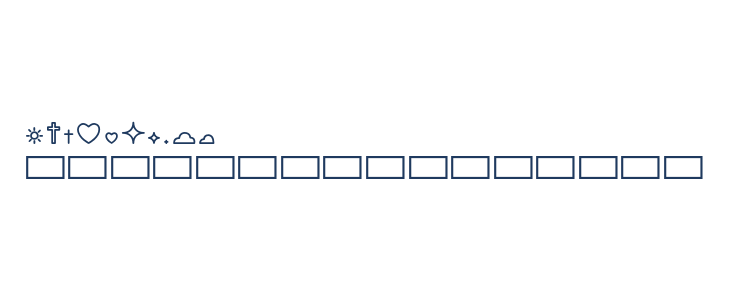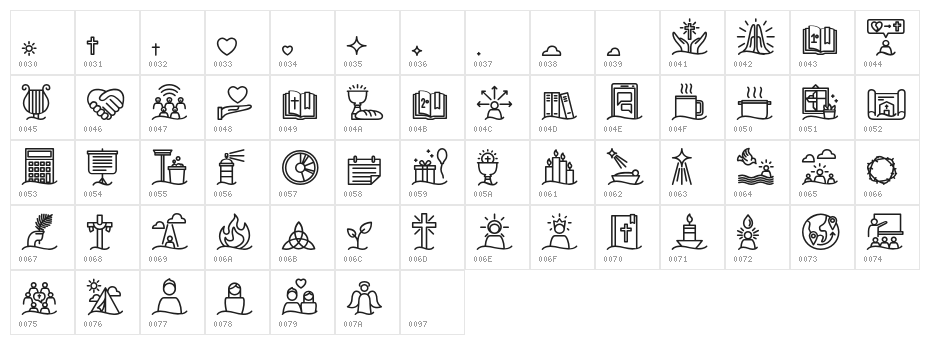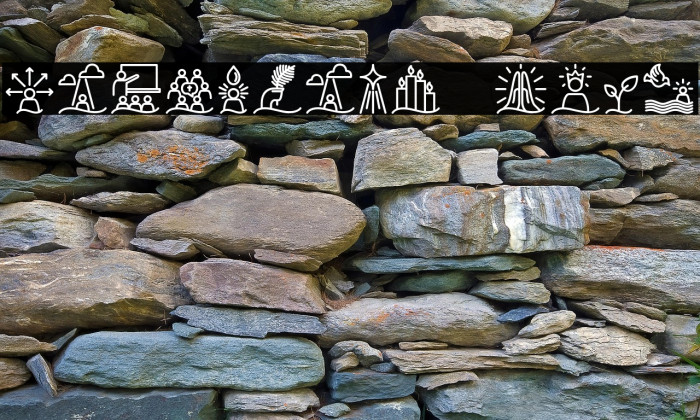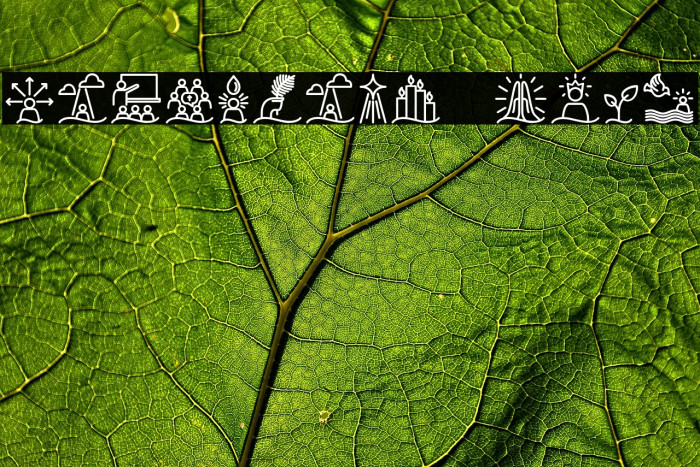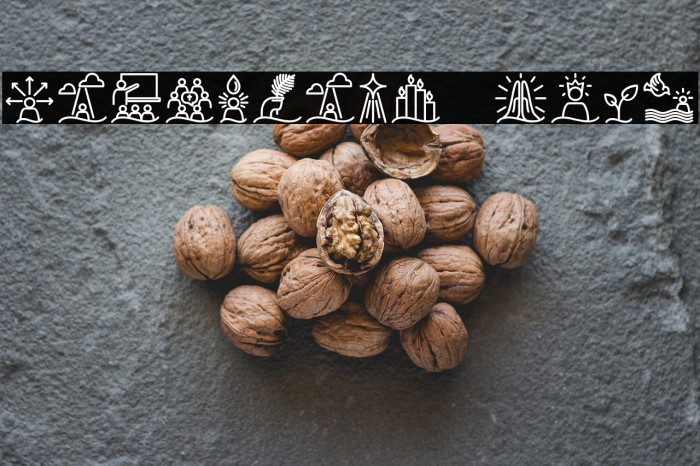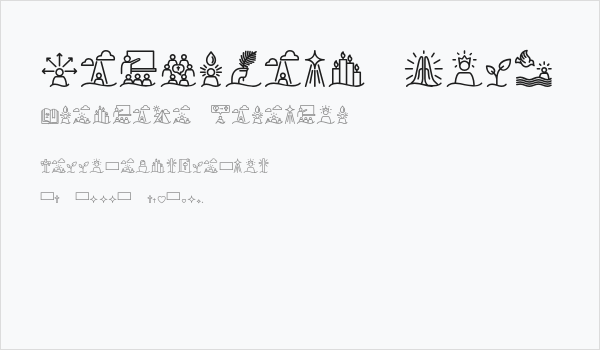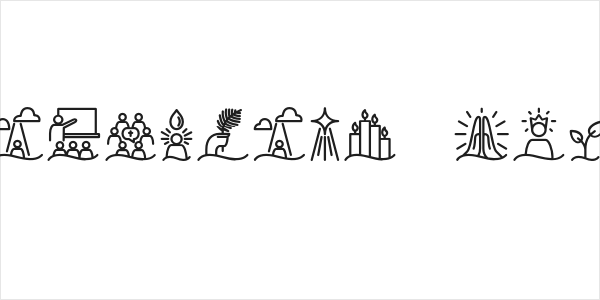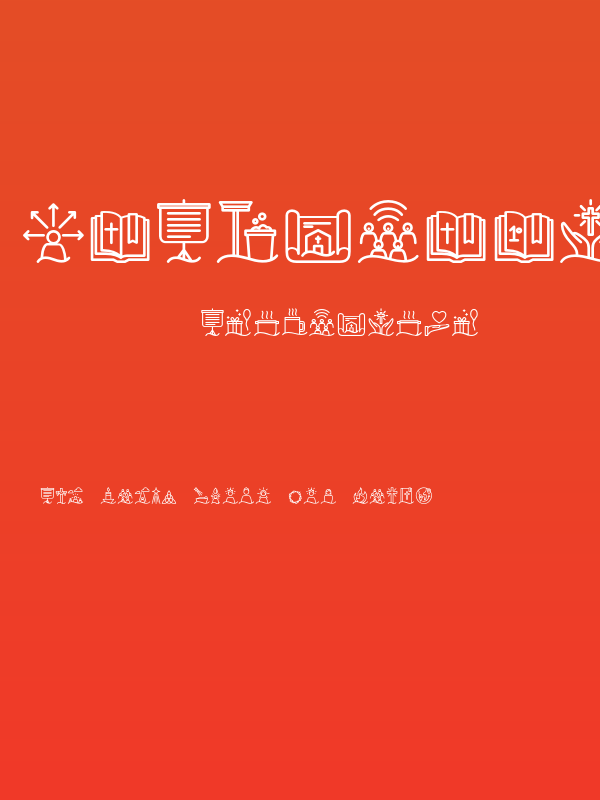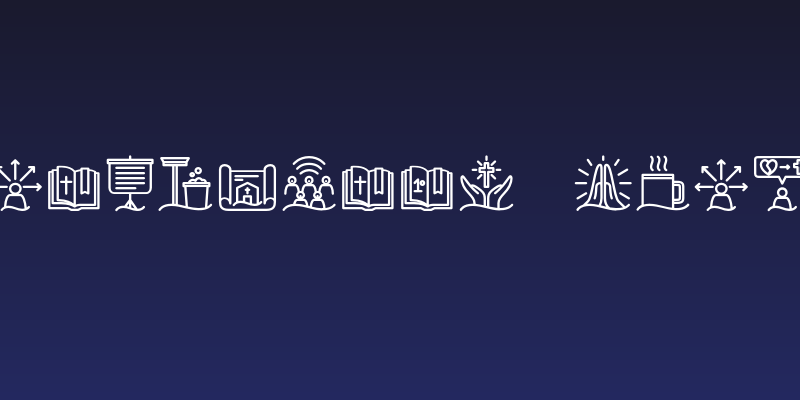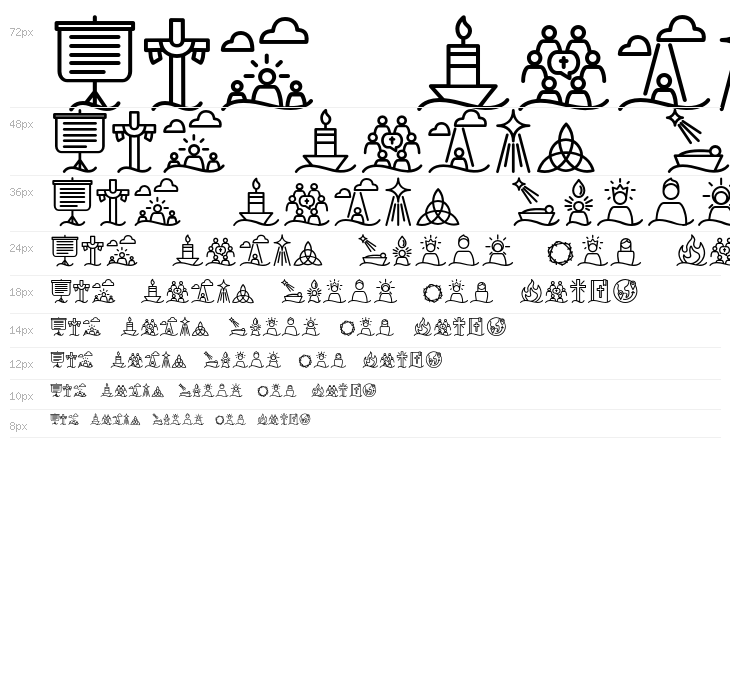
A decorative icon set featuring religious and community-themed line art illustrations, including symbols like crosses, books, candles, hearts, people, and various church-related imagery. The icons are outlined, consistent in stroke weight, and have a hand-drawn yet clean appearance.
| Overall Style | Decorative, Modern, Thematic |
| Use Case | Icons, Illustrations, Thematic dividers, Visual accents |
| Proposed Projects | Church bulletins, religious event flyers, educational materials, community outreach graphics, worship presentation slides. |